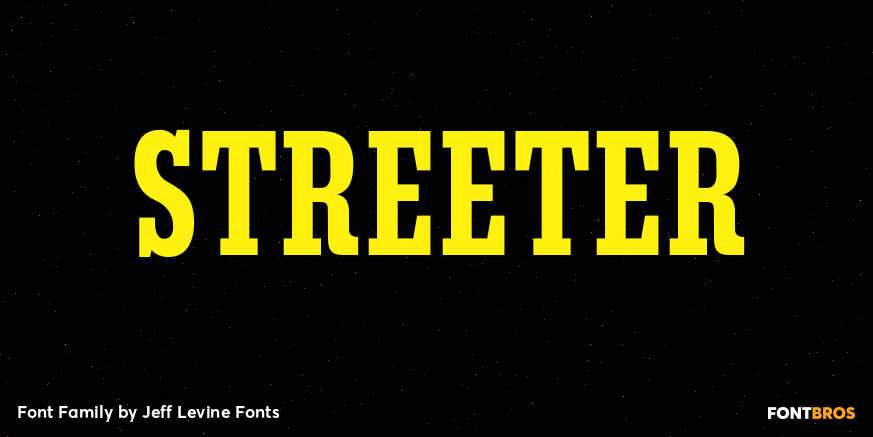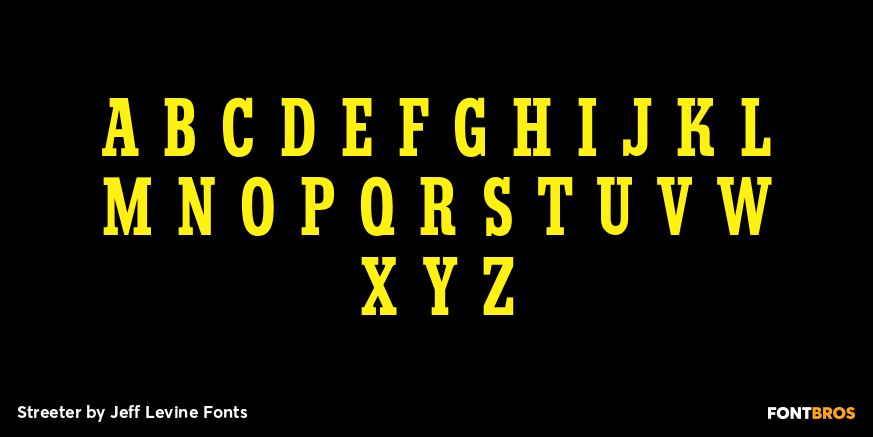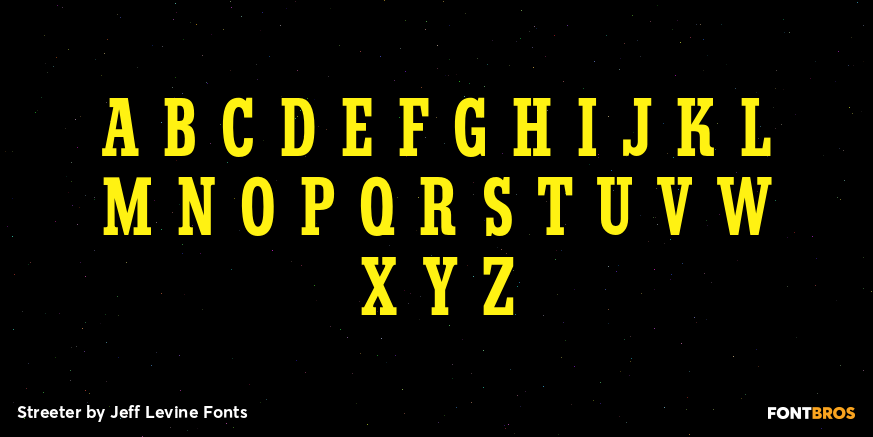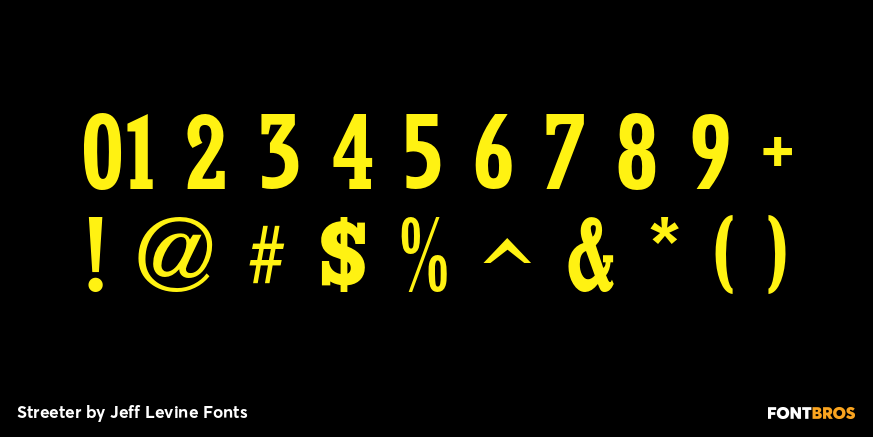
Streeter
Streeter JNL is an all caps titling font based on the classic Beton Bold Condensed typeface. The Beton family of fonts was a printer's favorite for decades.